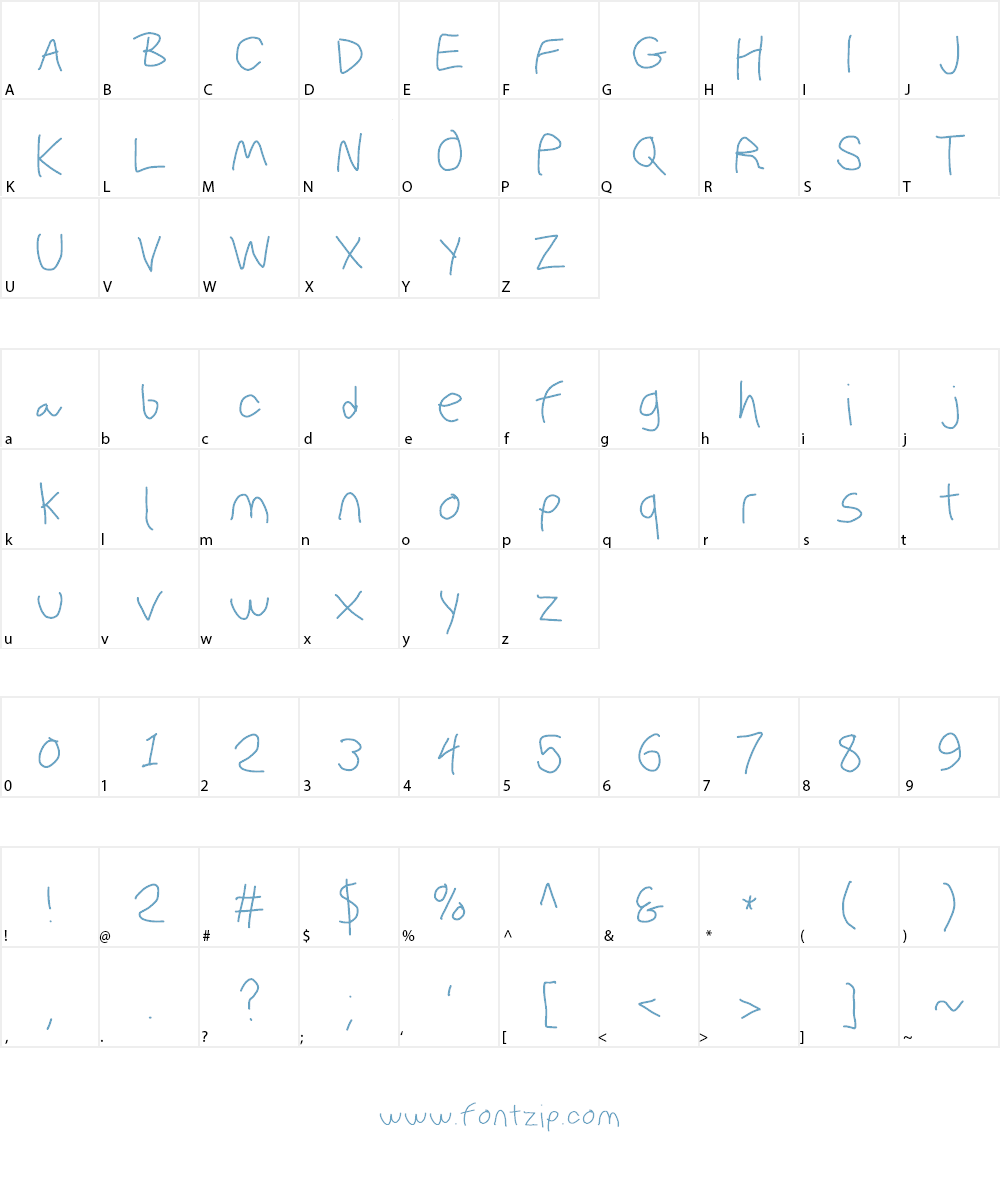
This is a Public Domain dedicated Handwriting style font. The license is written in a Polandball theme, but says that it is Public Domain in normal english.
UPDATE: 2 new widths added, Italics for all 3 widths added, updated license.